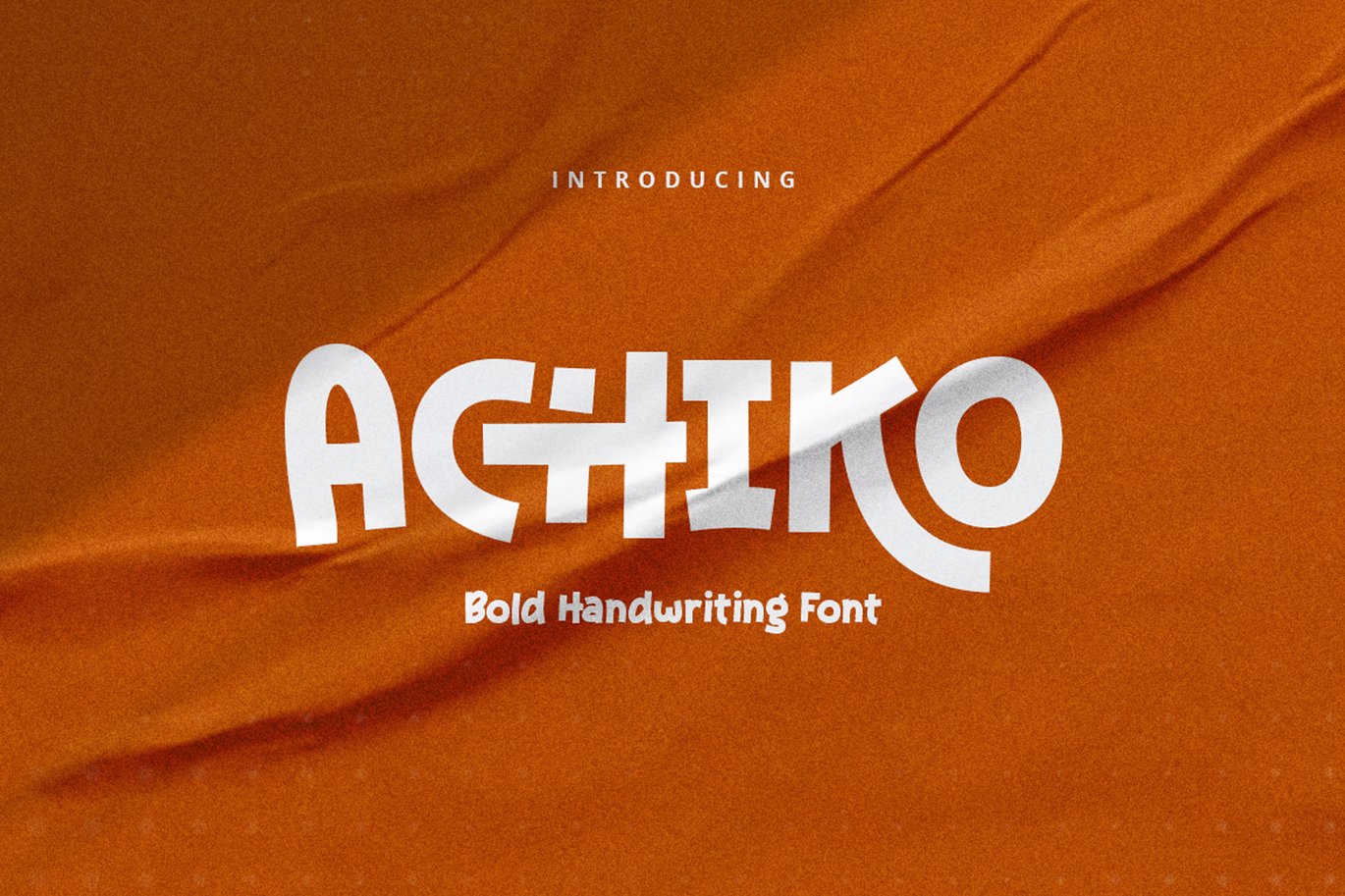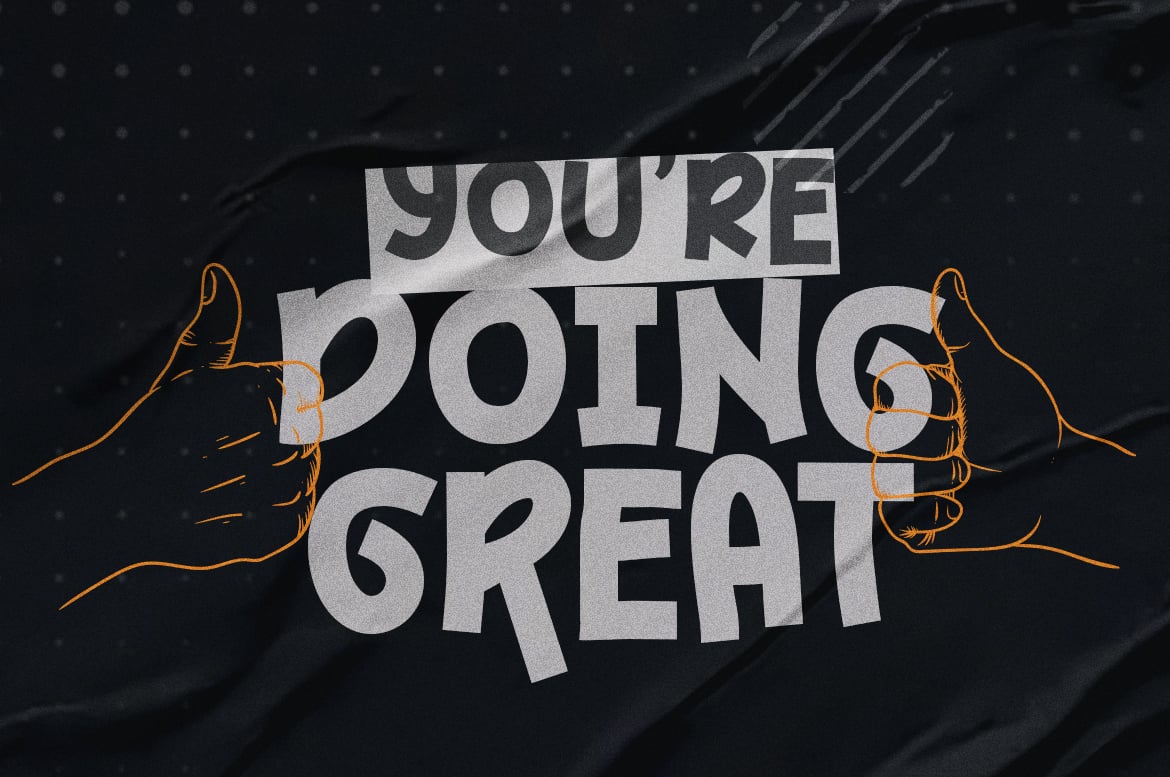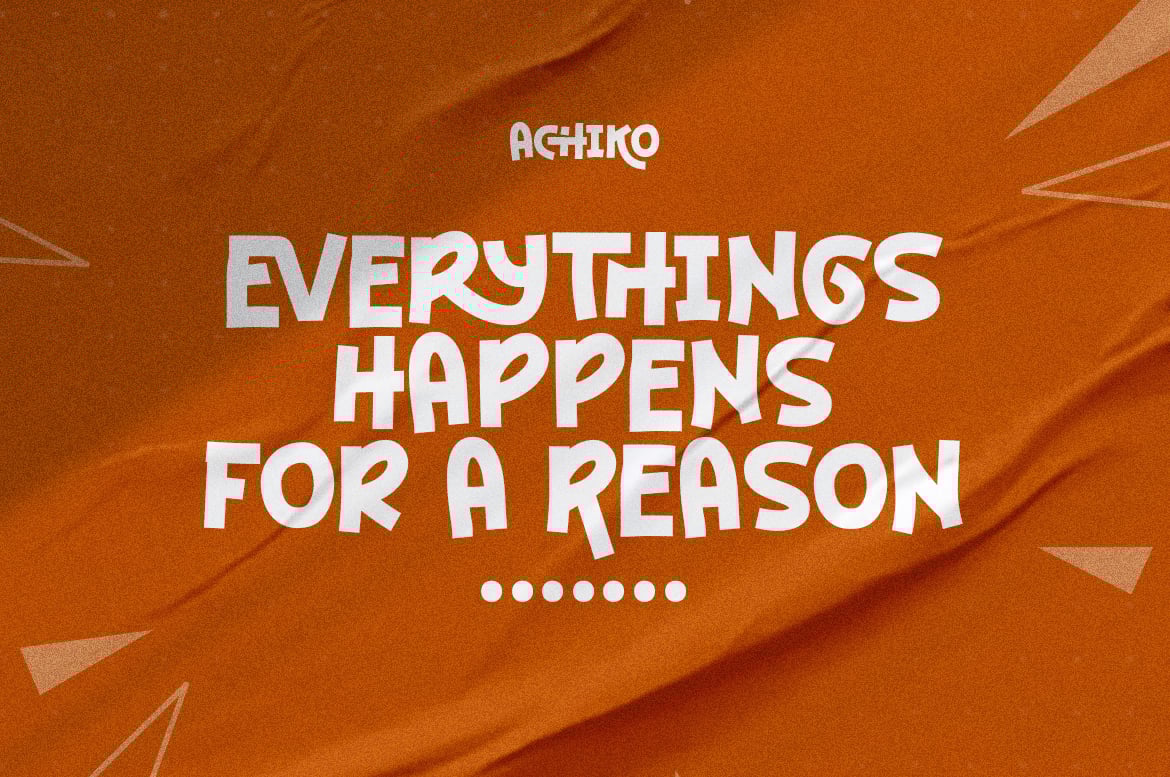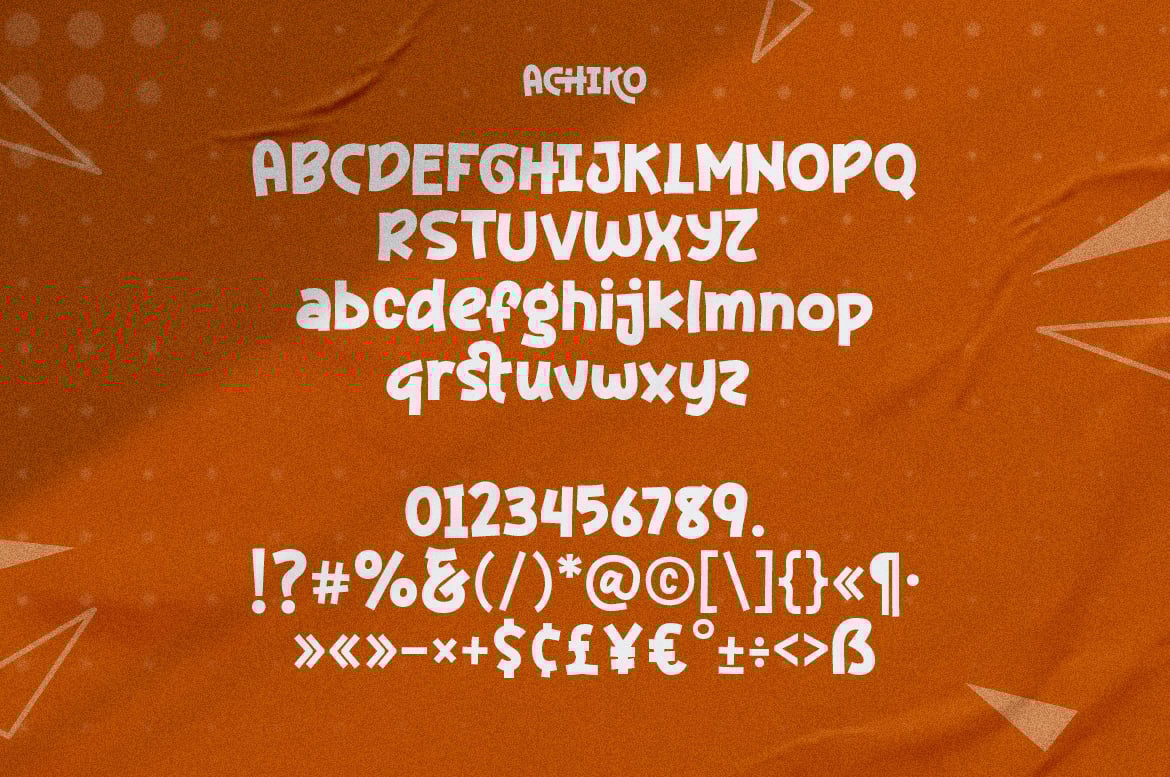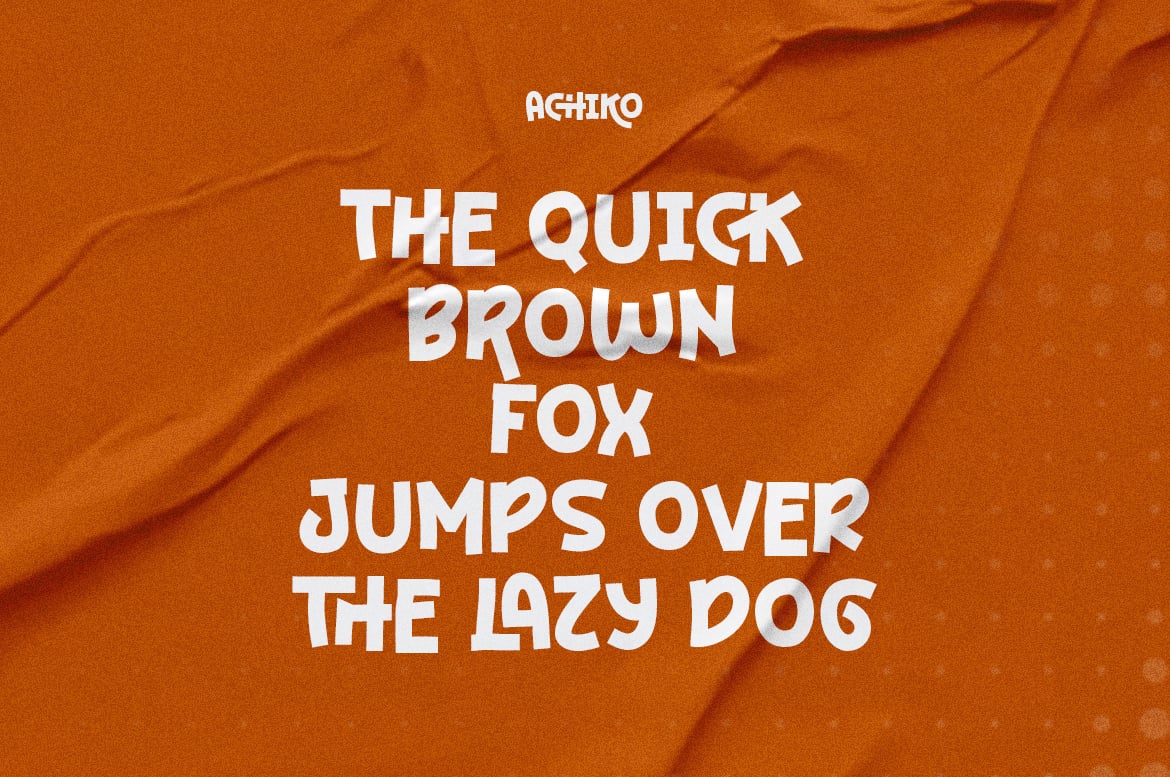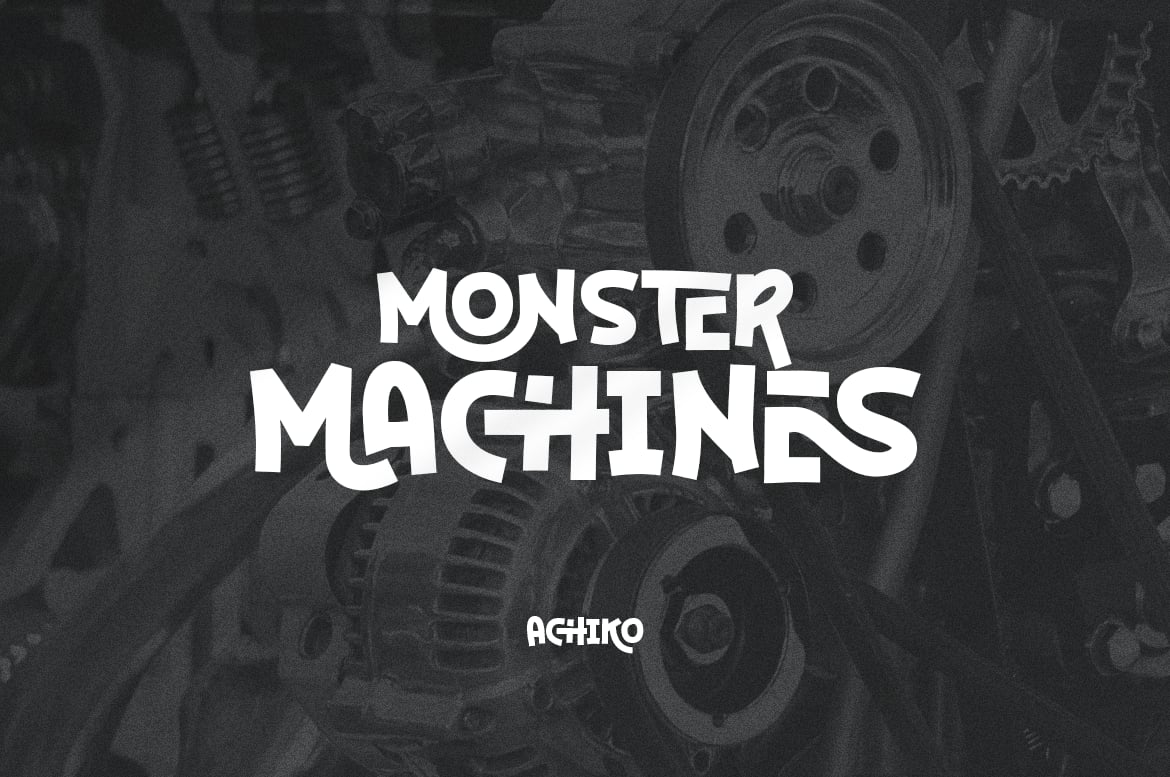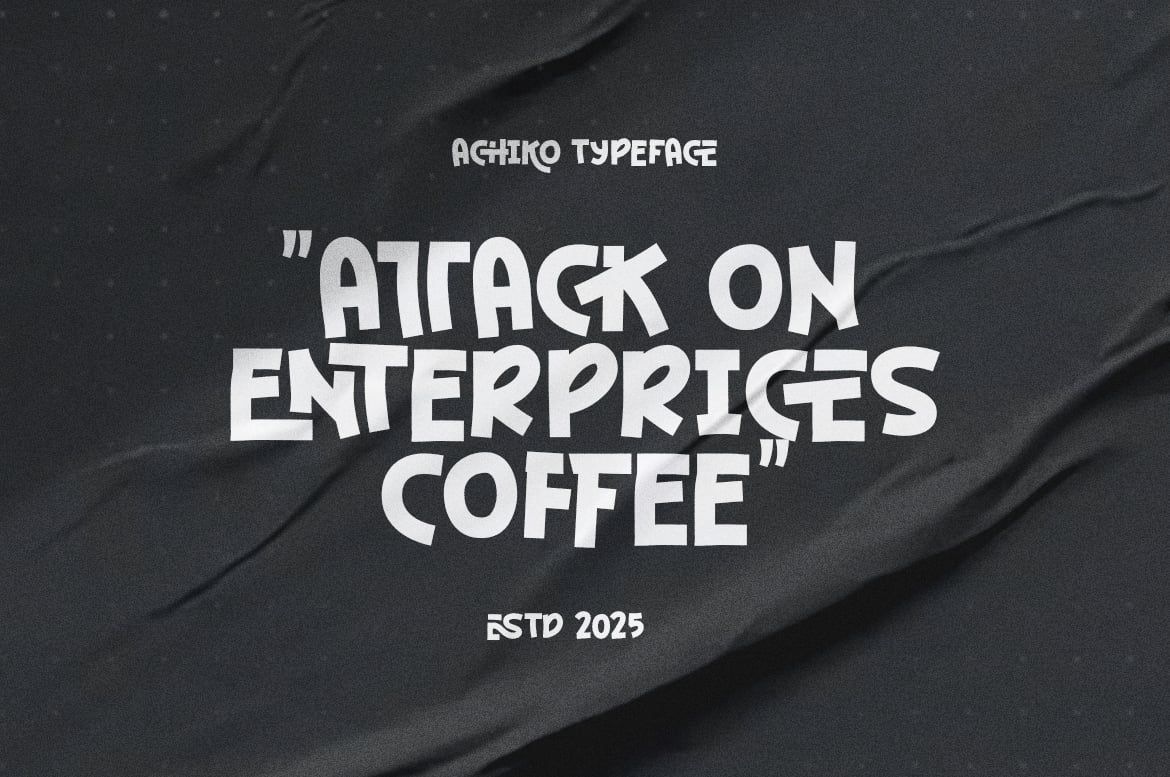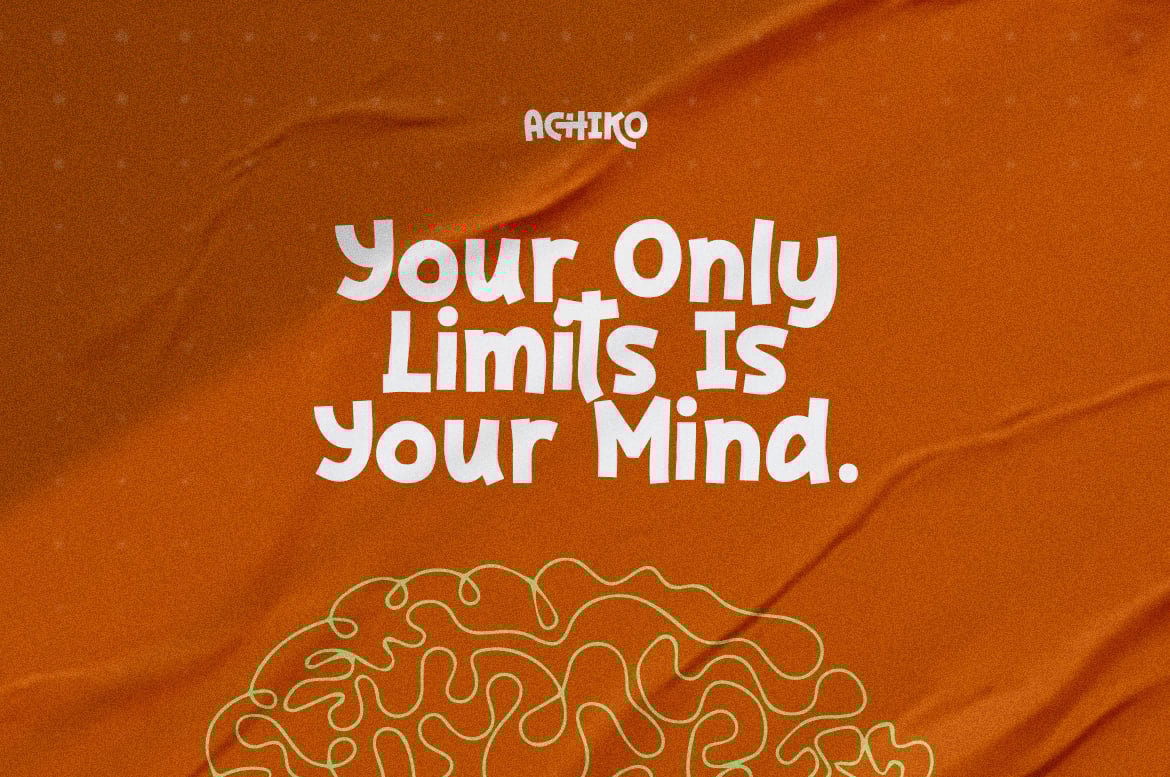
Achiko Font
Achiko is a bold handwriting font that stands out with its sharp, distinctive edges. Designed for those who want to make a statement, this font combines the dynamic flow of natural handwriting with a strong, assertive presence. The sharp edges give it a modern, edgy feel, making it perfect for striking headlines, logos, and branding materials. Equipped with unique ligatures, Achiko ensures smooth, visually appealing connections between letters, adding an extra layer of sophistication and creativity to your text. Whether you’re working on digital designs or print projects, Achiko adds a bold and stylish flair to your work.